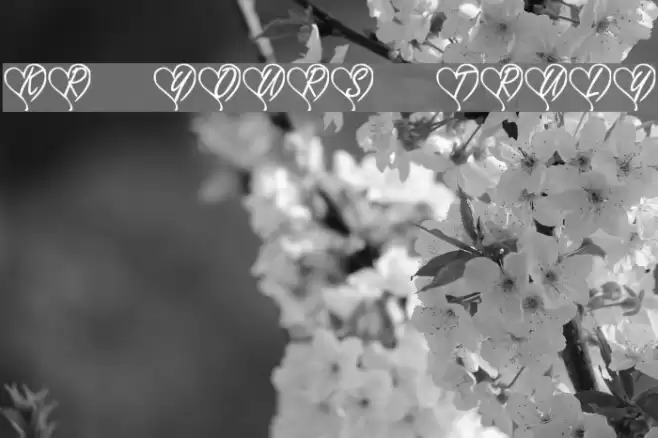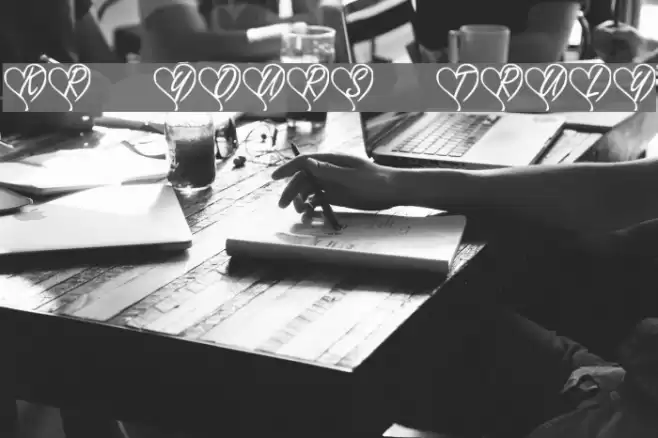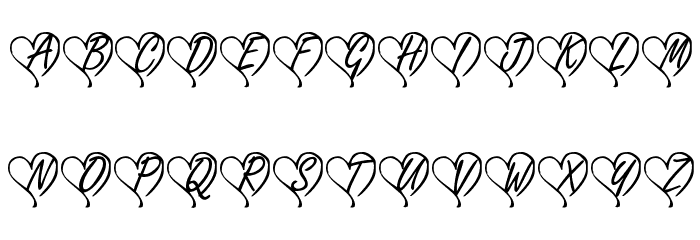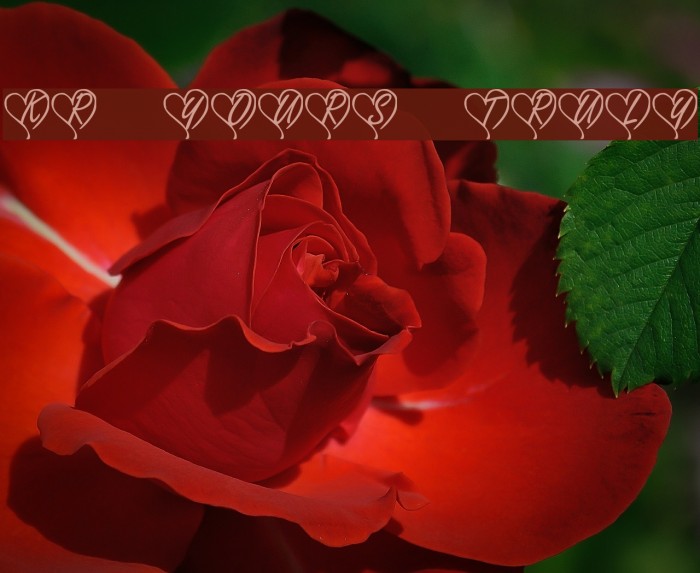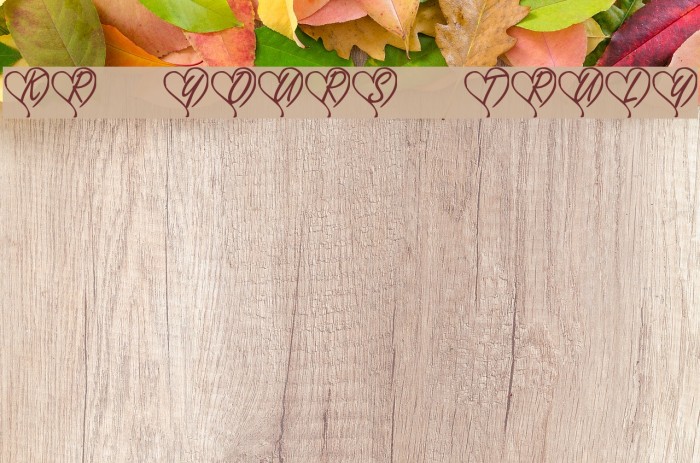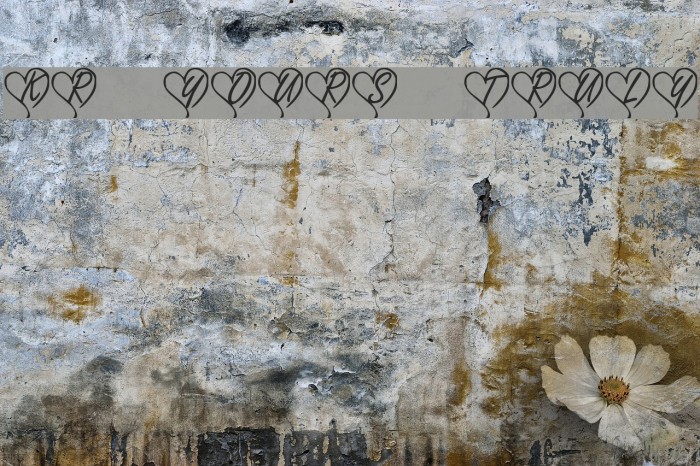
KR Yours Truly Font
KR Yours Truly Description
This font features a whimsical and romantic design, where each letter is elegantly intertwined with a heart shape. The uppercase and lowercase letters maintain a consistent style, creating a cohesive look. The strokes are smooth and flowing, adding a touch of elegance and charm. The font is decorative and playful, making it ideal for projects that require a personal or affectionate touch. The absence of numbers and special characters suggests a focus on alphabetic expression.
A whimsical font with letters elegantly intertwined with heart shapes from Valentine fonts.
- Proposed Projects: Ideal for wedding invitations, romantic greeting cards, personalized gifts, and love-themed branding.
- Overall Style: Romantic, Playful